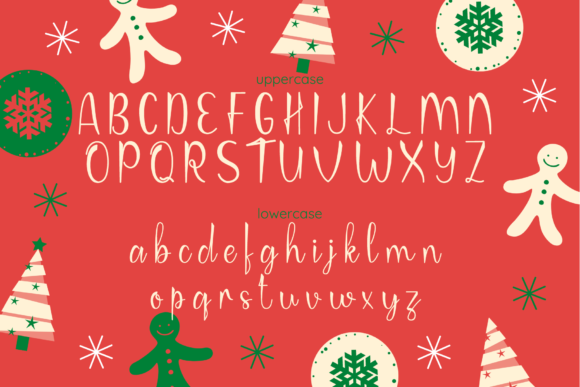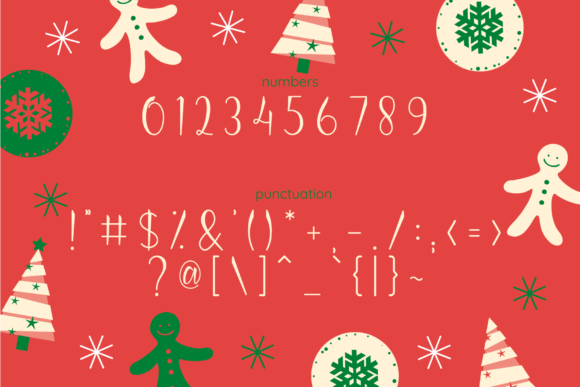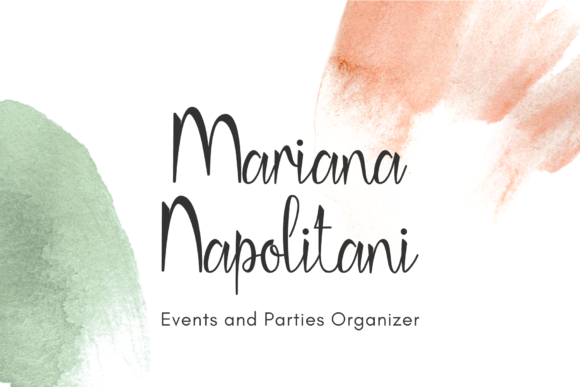
Introduction to Peaceful Christmas Font
As the snowflakes gently fall outside, and the fireplace crackles to life, you’re inspired to create the perfect holiday design. It’s moments like these that remind us of the magic of the season, and the importance of having the right tools to bring our creative visions to life. For designers, finding the perfect font can be the difference between a mediocre and a magnificent project.
Enter the Peaceful Christmas Font, a delicate and elegant handwritten font that’s sure to capture the essence of the holiday season. Its unique and well-balanced letters make it a masterpiece that’s perfect for creating spectacular designs, whether you’re working on a free download or a high-quality design resource.
With its versatility and high-quality design, the Peaceful Christmas Font is a valuable addition to any designer’s toolkit, making it an ideal choice for any creative project, from invitations to social media graphics with a transparent background.
Key Features of Peaceful Christmas Font
- High-quality, elegant design perfect for a creative project or holiday greeting card.
- Features a transparent background, allowing for easy customization and seamless integration into any design.
- Designed with a unique, whimsical style that captures the spirit of the holiday season.
- Perfect for adding a touch of festive charm to invitations, posters, or digital graphics.
Honest Review: Peaceful Christmas Font
As a designer, I’m always on the lookout for high-quality design resources to help bring my creative projects to life. The Peaceful Christmas Font is one such resource that caught my attention, and I’m excited to share my honest review with you.
- ✨ Beautiful, intricate designs that evoke a sense of peace and tranquility
- ✨ High-quality fonts that are perfect for use on a transparent background
- ⚠️ Limited character set, which may not be ideal for longer texts
- ⚠️ May not be suitable for all design styles, particularly those with bold or edgy themes
Overall, I’m impressed with the Peaceful Christmas Font. It’s a great design resource for anyone working on a creative project that requires a touch of elegance and sophistication. While it may have some limitations, it’s still a valuable addition to any designer’s toolkit.
The Peaceful Christmas Font is perfect for holiday-themed designs, including Christmas cards, gift tags, and social media graphics. It’s also great for creating winter-themed designs, such as snowflakes and snowmen.
Q: Does the Peaceful Christmas Font have a transparent background?
Yes, the Peaceful Christmas Font has a transparent background, making it easy to use on any background image or design. This feature is especially useful for designers who want to create a seamless and cohesive look for their project.
Q: Is the Peaceful Christmas Font suitable for high-quality printing?
Yes, the Peaceful Christmas Font is designed for high-quality printing. It is a high-resolution font with precise details and clear lines, ensuring that it looks great when printed on paper or other materials.